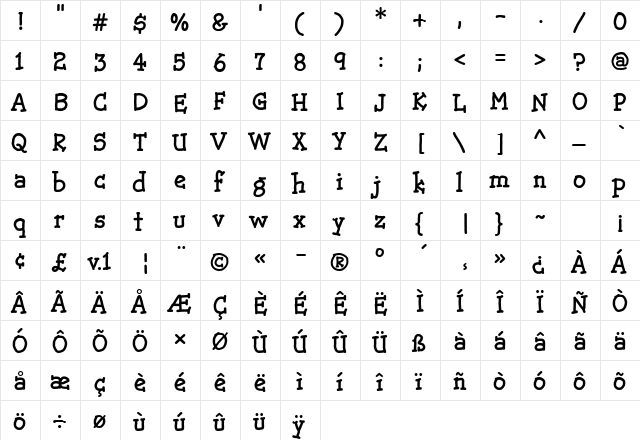
GweetHmkBold Regular
Design Context for GweetHmkBold Typeface
GweetHmkBold offers clean, dependable letterforms without strong stylistic allegiance, making it a practical choice for designers who need flexibility. The heavy weight commands attention and anchors typographic hierarchies.
Pro Tip: Use GweetHmkBold in both headline and body roles to test its range before committing to a single application.